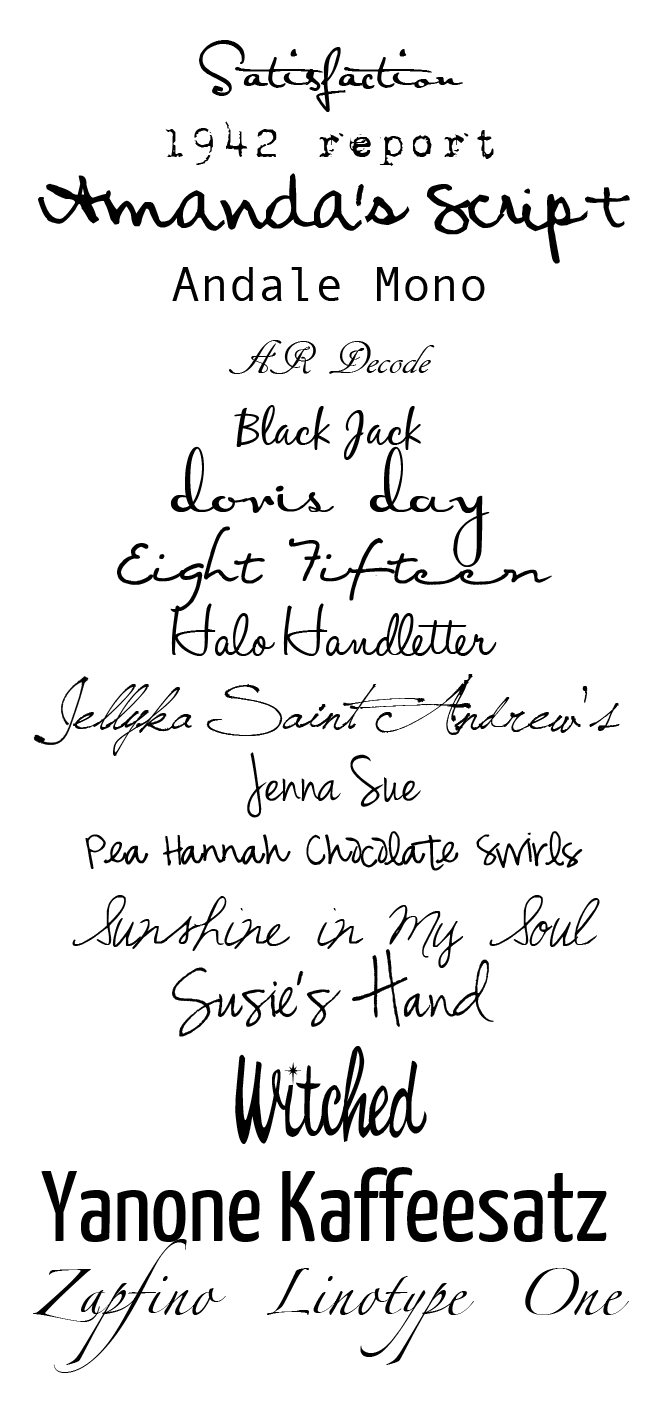
Because of this, serif fonts are popular fonts for long blocks of text like books, newspapers, and magazine articles. Best free photoshop fonts #32 monpance.
Retro Computer Font Open sans +9 by steve matteson.
This beautiful serif font is a wonderful choice for points of emphasis. Cps 243 sinhala font free download april 5, 2020. This font is great for designing video games, posters, puzzles, and arcade games, and a lot of toy packaging. Polish designer gluksza offers some great free design resources.
Free fonts often have not all characters and signs, and have no kerning pairs (avenue ↔ a venue, tea ↔ t ea). Another big name in the list of free fonts download site is fontstruct which offers more than 43,000 unique fonts. Top fonts sorted by the number of downloads. Cps 236 sinhala font free download some of my favorite fonts Computer font, Fonts, Favorite fonts.
If you want to create professional printout, you should consider a commercial font. Ariona simple and clean web fonts. You can see the list of the best arcade fonts. Polish designer gluksza offers some great free design resources. My favourite fonts and how to download fonts to your computer.
You can see the list of the best arcade fonts. That’s it, now you can use these fonts anywhere you want. It's unique geometric lines make it an excellent choice for logotypes. Cps 242 sinhala font free download april 5, 2020. My Favorite FREE Fonts Take 3! Silhouette fonts, Scrapbook fonts.
Another big name in the list of free fonts download site is fontstruct which offers more than 43,000 unique fonts. This beautiful serif font is a wonderful choice for points of emphasis. Leafy is a modern freestyle handwritten font introduced by krisijanis mezulis. Calibri, google noto fonts, and fira code are probably your best bets out of the 9 options considered. 30 of the Best Web Typography Resources Online Webdesigner Depot.
The letters look like a real, slightly illegible handwriting. That’s it, now you can use these fonts anywhere you want. You can see the list of the best arcade fonts. 57 professional desktop fonts to download. 20 Super Cute Fonts! Fuente de letras, Diferentes tipos de letra y.
Because of this, serif fonts are popular fonts for long blocks of text like books, newspapers, and magazine articles. This font is great for designing video games, posters, puzzles, and arcade games, and a lot of toy packaging. Little lord fontleroy nf by nick. Rouqa urdu font ( download) shafigh kurd urdu font mtc. Starberry Swirl Delight font download best ttf fonts for free.
This page is powered by a knowledgeable community that helps you make an informed decision. 3 tips for choosing best fonts for website owners conclusion. Press right click and click on install or install for all users. The truetype fonts available here are of. Pin on Halloween.
Another big name in the list of free fonts download site is fontstruct which offers more than 43,000 unique fonts. Top urdu fonts shafig kurd font ( download) alvi lahori nastaaleq urdu font download. The fonts presented on this website are their authors' property, and are either freeware, shareware, demo versions or public domain. Najd urdu font ( download) rouqa urdu font mtc. 14 Best Cool Fonts Inspiration For 2019 That Looks Good On Your Project.
While It May Be A Great Signature Typeface, It Is Recommended Not To Use It To Convey Important Information.